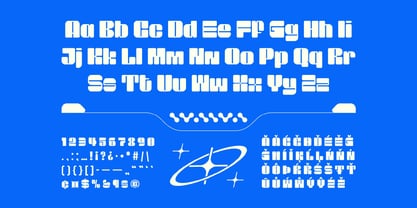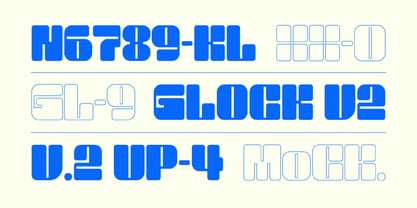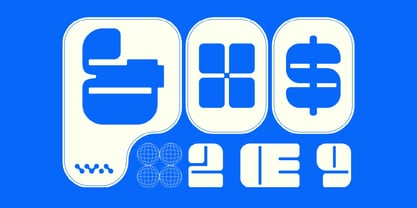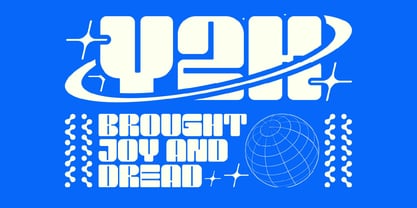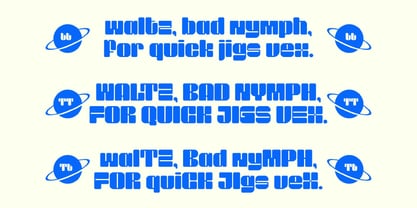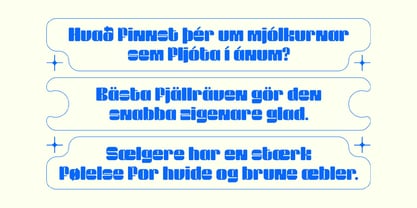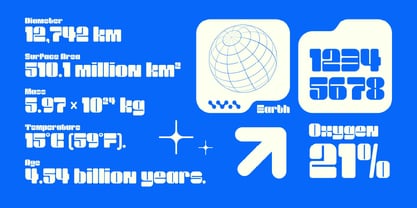
Cook Fatdisp
by Graphicook Studio
The Cook Fatdisp Font Family was designed by Gumilar Febriansyah and published by Graphicook Studio. Cook Fatdisp contains 1 styles. More about this family
Fatdisp is a combination of fat and display. This font has a wide and bold typeface, making it suitable for social media, magazines, websites, etc.
It is perfect for headlines, logotypes, magazines, packaging, quotes, movies, games, cover albums, book covers, and flyers, it's a perfect solution for creating eye-catching designs that stand out in any context.
Designers: Gumilar Febriansyah
Foundry: Graphicook Studio